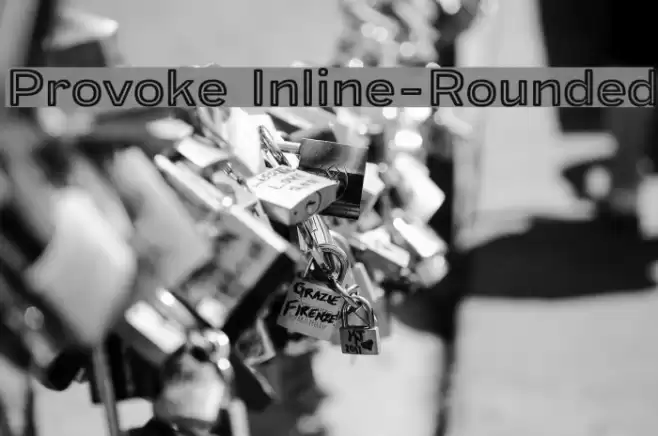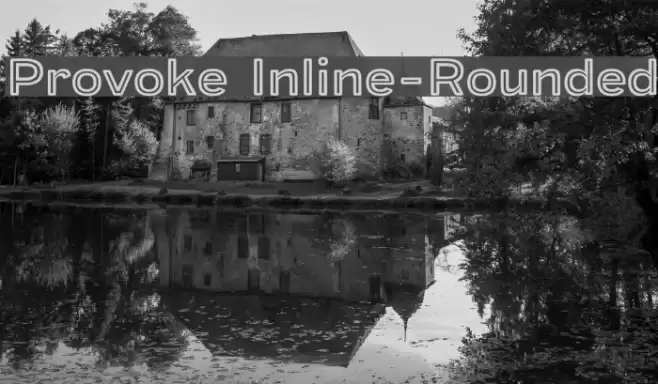
Provoke Inline-Rounded Font
Provoke Inline-Rounded Description
This font features a modern, rounded design with an inline style that gives it a unique and eye-catching appearance. The uppercase and lowercase letters are well-balanced, with consistent stroke widths that create a harmonious look. The numerals are clear and legible, making them suitable for various applications. The special characters are designed with the same attention to detail, ensuring they blend seamlessly with the rest of the font. The overall style is clean and contemporary, making it versatile for both digital and print media.
A modern, rounded inline font with a clean and contemporary style from Uncategorized fonts.
- Proposed Projects: Ideal for branding, advertising, packaging, and digital media projects that require a modern and distinctive look.
- Use Case: Headlines, Logos, Branding